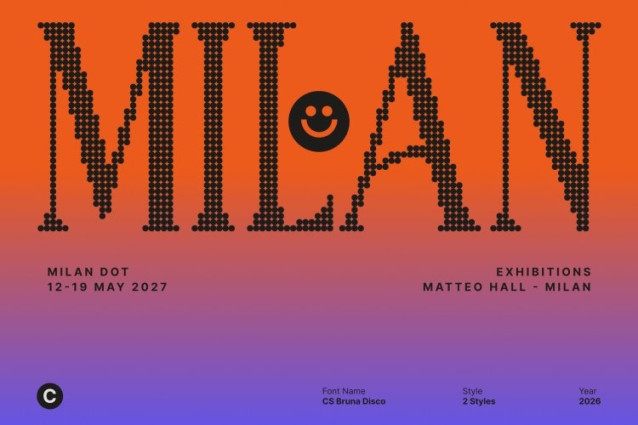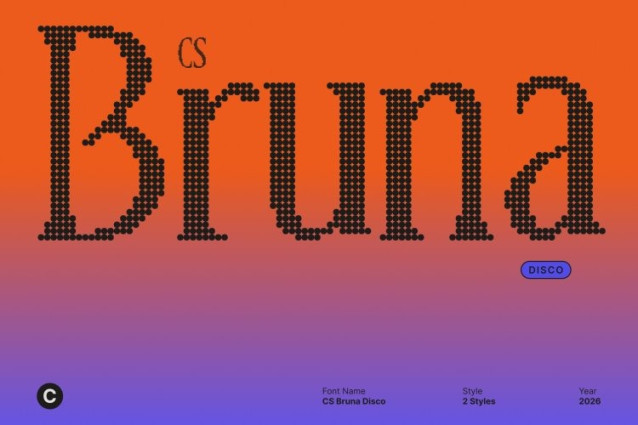
CS Bruna Disco Font
CS Bruna Disco Font This is an elegant serif font crafted to deliver a refined, high-end appearance infused with glamorous disco energy. Built on sleek lines and balanced proportions, its smooth curves and elongated details create a sophisticated silhouette that feels modern, polished, and confidently radiant. While rooted in clarity and restraint, the disco influence adds a subtle sparkle—bringing contemporary elegance to life with festive charm and visual excitement.
Elongated Details with Sleek, Rhythmic Forms
The elongated letterforms introduce graceful movement and visual rhythm, echoing the flow of music and motion on the dance floor. Clean strokes and carefully controlled contrast keep the font light and composed, while a lively energy pulses beneath its refined surface. This thoughtful balance allows the typeface to feel elegant yet dynamic, expressive yet highly readable across both digital and print applications.
Clean Design with Glamorous, Festive Personality
This font achieves a clean and modern look without feeling cold or mechanical. Its refined simplicity allows content to shine, while the elegant serif structure adds warmth, personality, and a celebratory glow. Inspired by flashing lights and stylish nightlife aesthetics, the font feels professional by day and glamorous by night confident, festive, and full of character.
Perfect for Headlines, Branding, and Statement Designs
Designed for comfort, clarity, and visual impact, this font is an excellent choice for headlines, branding, posters, editorials, and marketing materials. Each character is crafted for effortless readability, ensuring beautiful performance in both short display text and longer typographic compositions. Whether used for luxury branding or energetic creative visuals, this font delivers sophistication with a vibrant, disco-inspired spirit.